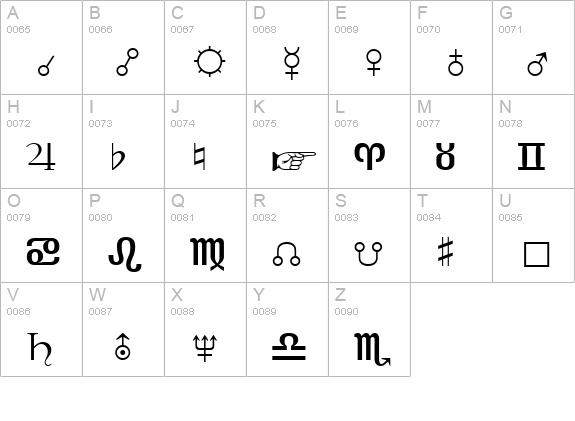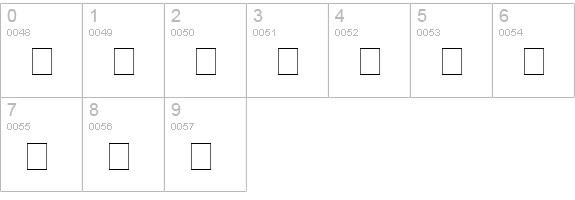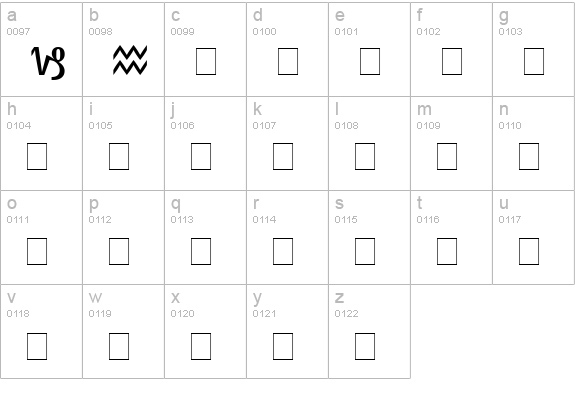
Bookshelf Symbol 3 font is a versatile and stylish typeface that combines elegance with a touch of modernity. Its unique design makes it perfect for a wide range of projects, from book covers to website headers. The sleek lines and sharp angles of this font give it a sophisticated and professional look that is sure to make your work stand out. What's more, Bookshelf Symbol 3 font is available for free download at FontsMarket.com. This means you can easily access and use this beautiful font in your projects without any cost. Don't miss out on the opportunity to enhance your designs with the stunning Bookshelf Symbol 3 font - download it today and take your creations to the next level!